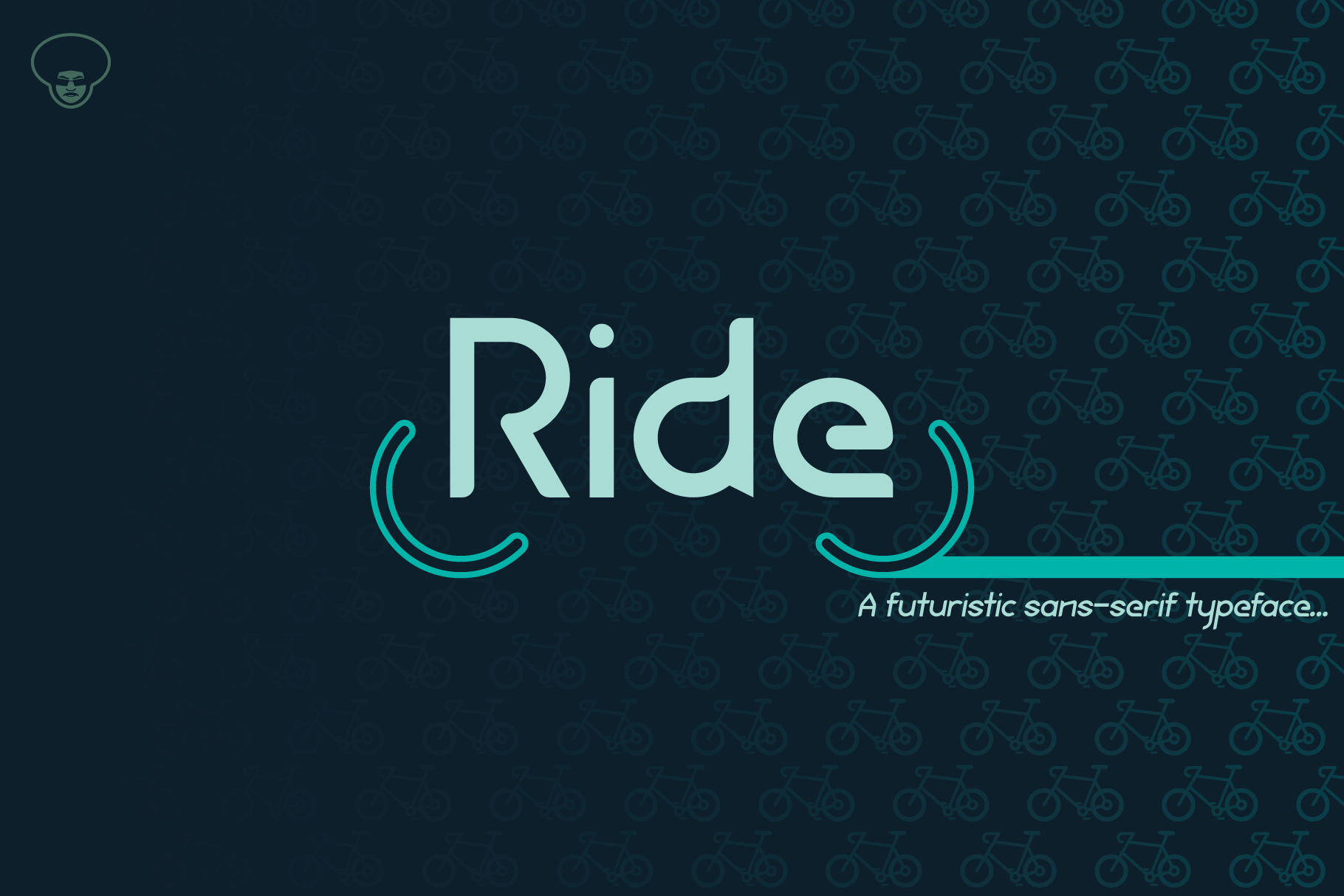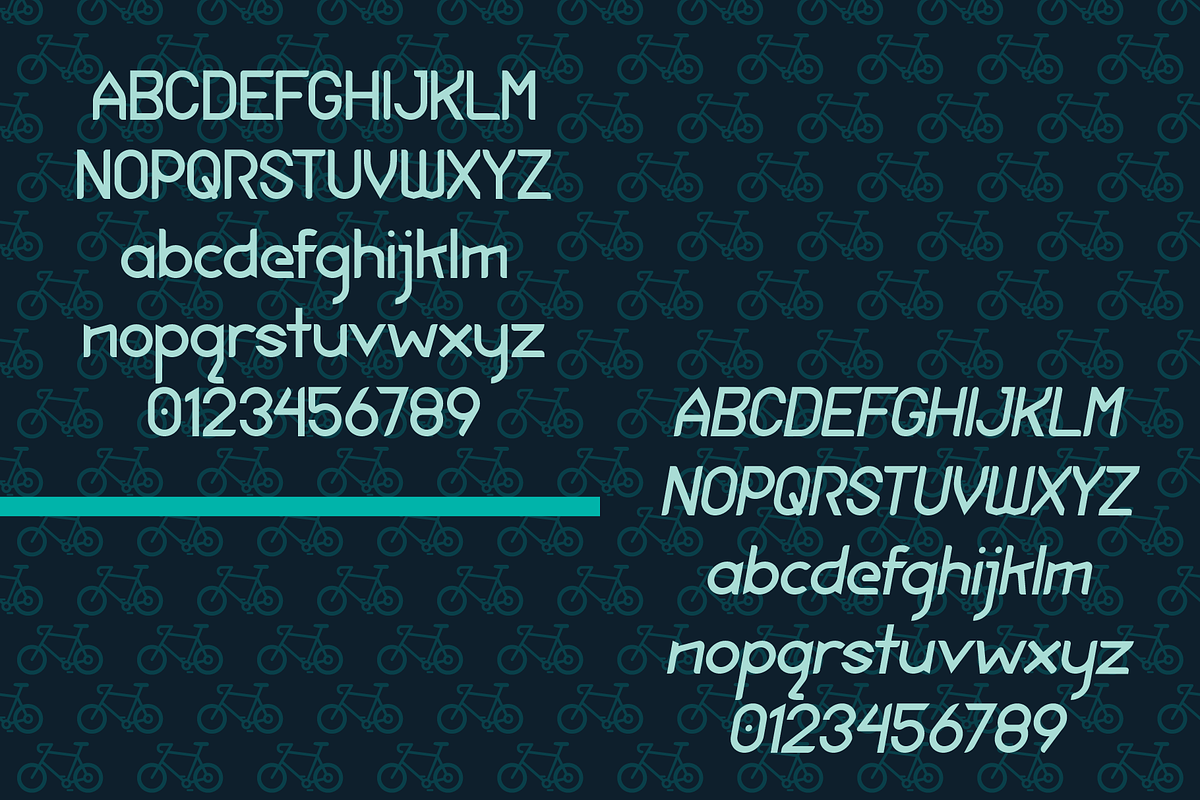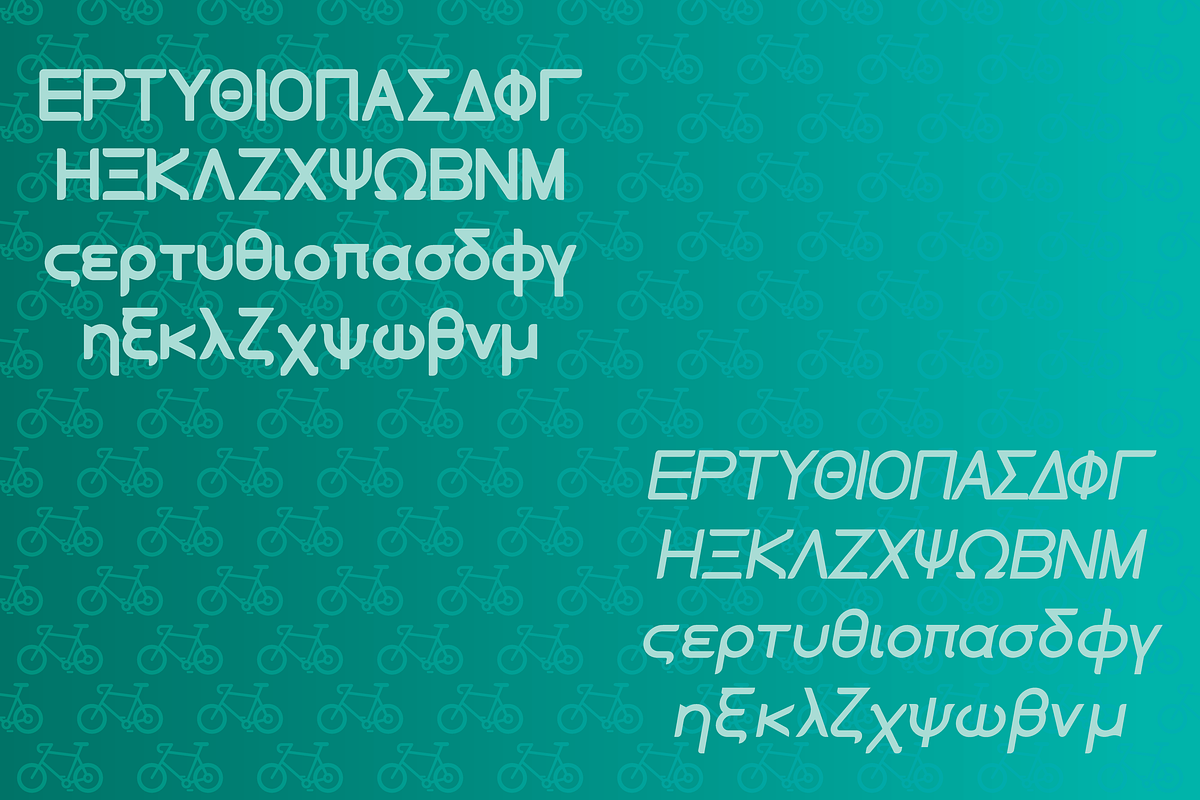
Ride Typeface
My first font!
A retro futuristic sans-serif typeface based on cycling. The origins of this particular typeface; like all of my other typefaces, are based on projects I worked on in the past with this project in particular; a screen printed poster I've made back in 2017 for an art & cycling event called Pinchflat. Pinchflat was an event that celebrated and promoted art & cycling in the Central Ohio Region.
Four font styles: Regular, Bold, Italic, Bold Italic
Two Scripts: Latin-based alphabet (English, Spanish, German, etc.) and Greek Alphabet